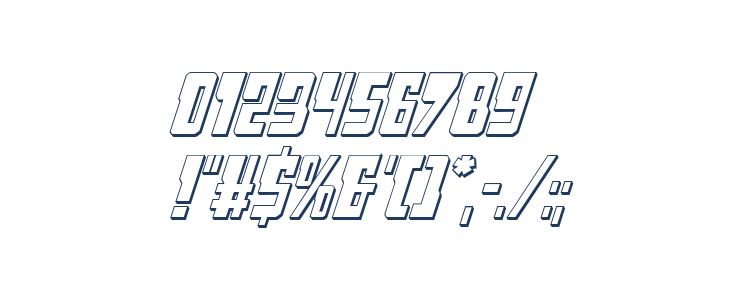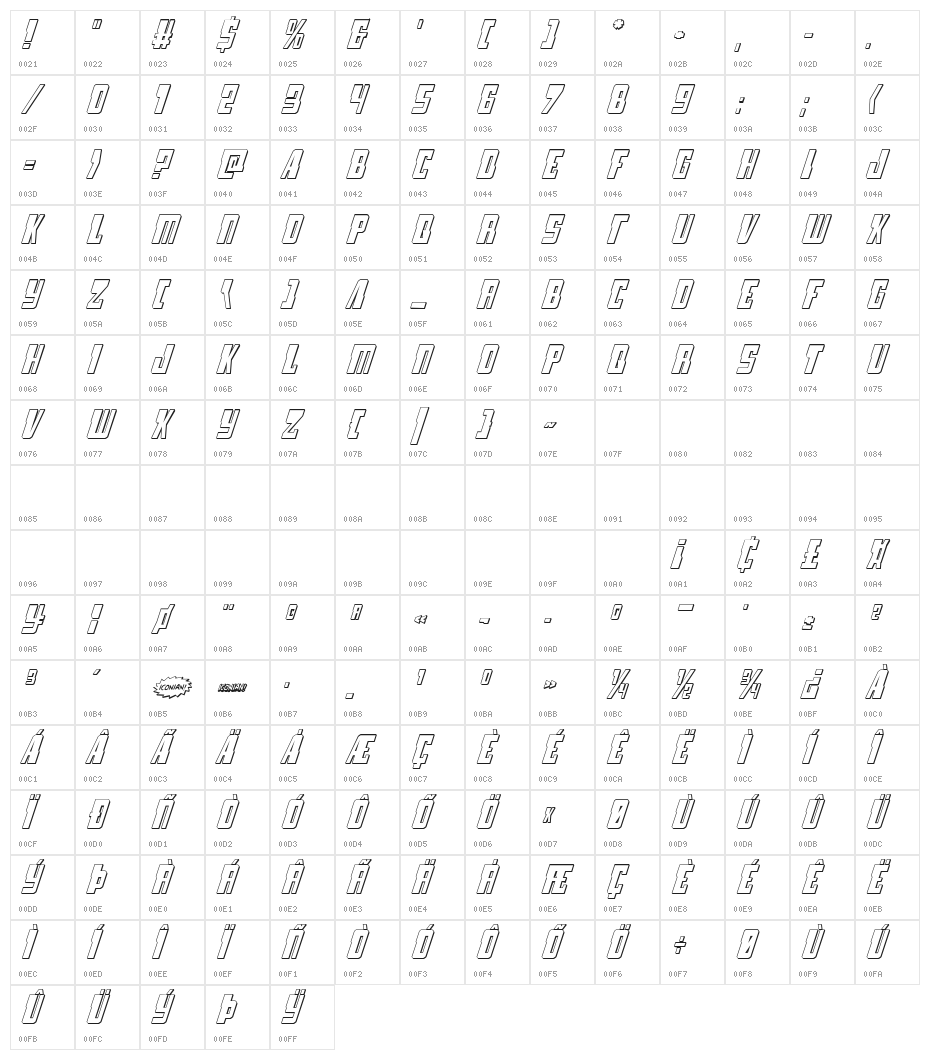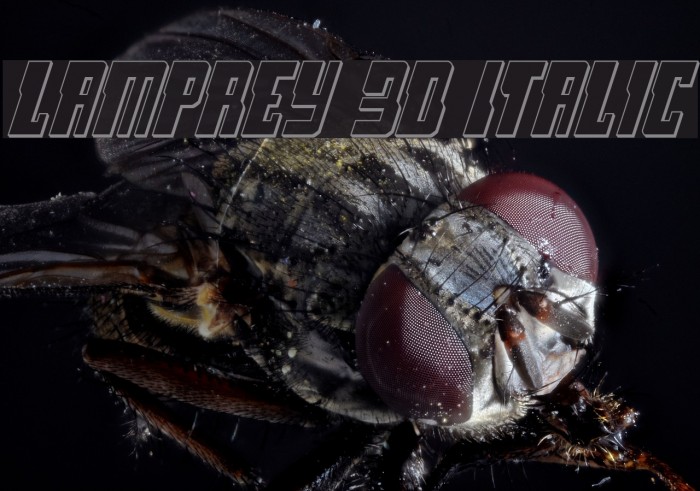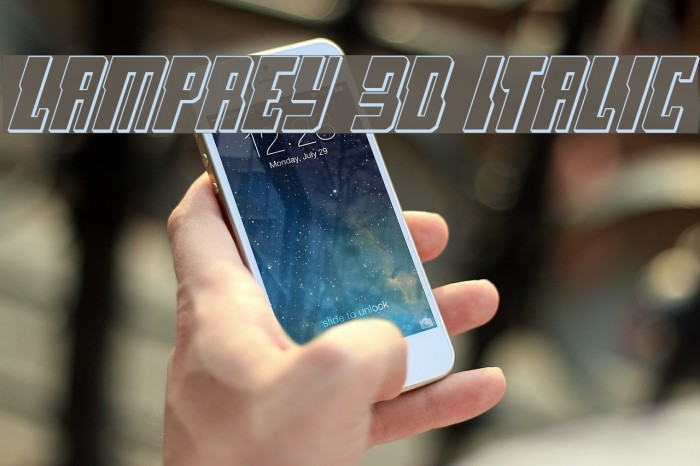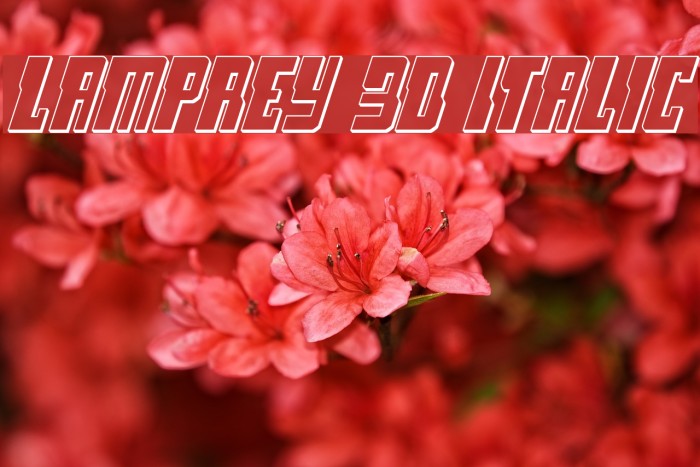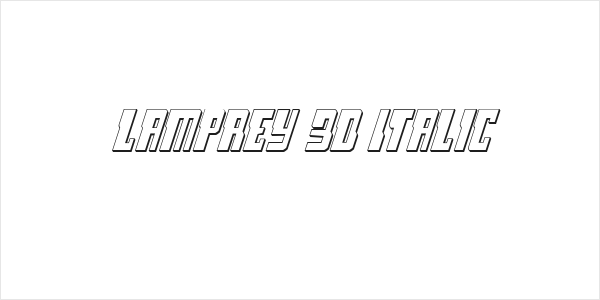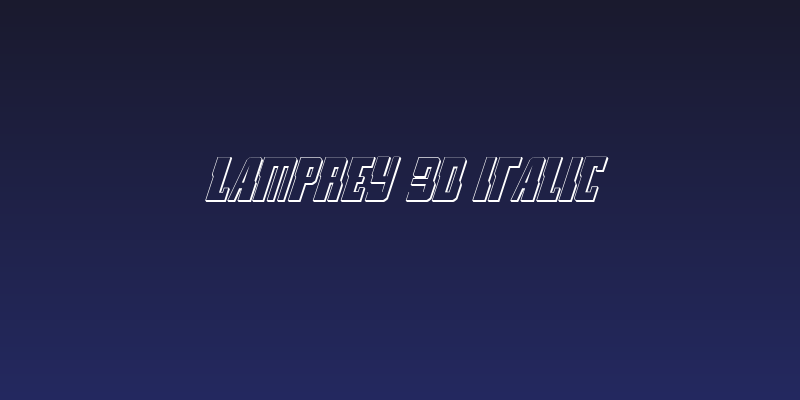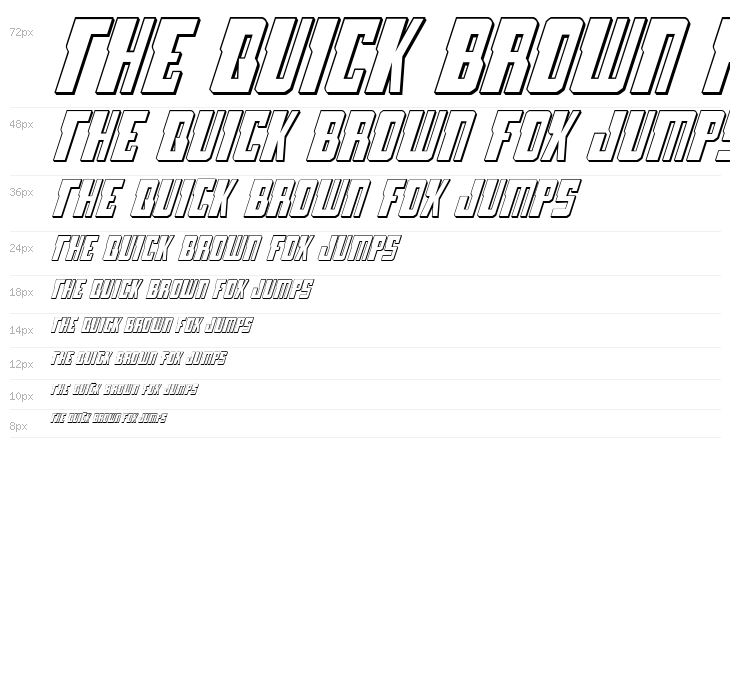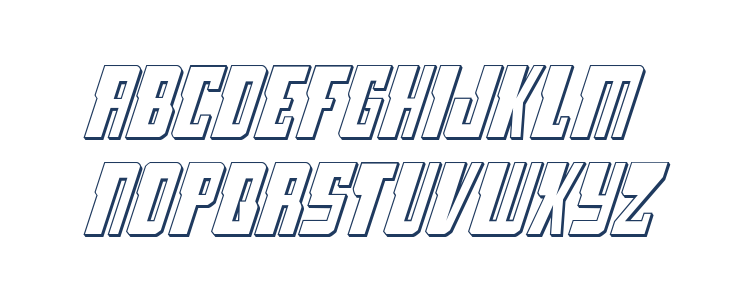
Lamprey 3D Italic Font
Lamprey 3D Italic Description
This font features a bold, three-dimensional design with a distinct italic slant, giving it a dynamic and futuristic appearance. The characters are outlined, creating a shadow effect that enhances the 3D illusion. Each letter is sharply angled, contributing to a sense of movement and energy. The uppercase and lowercase letters maintain a consistent style, with uniform thickness and spacing. Numbers and special characters are designed to match the bold and angular aesthetic, making the font suitable for attention-grabbing headlines and modern designs.
| Proposed Projects | Ideal for sci-fi themed posters, video game titles, and modern branding projects. |